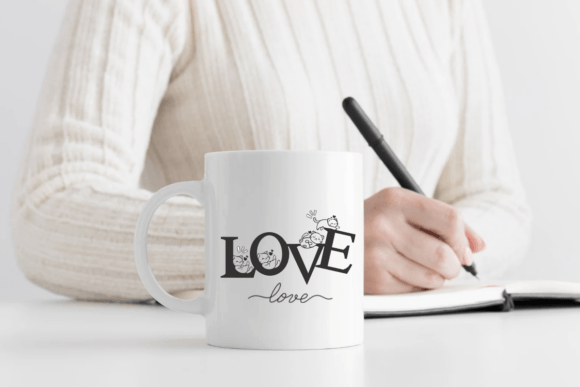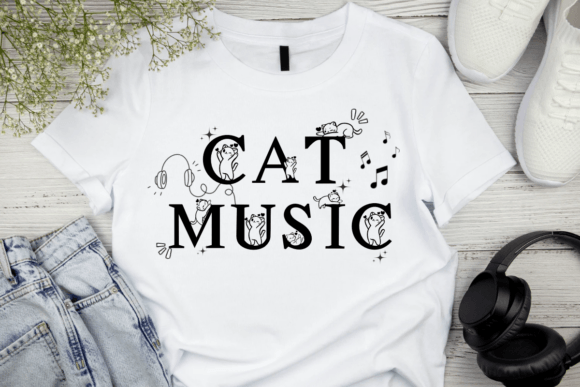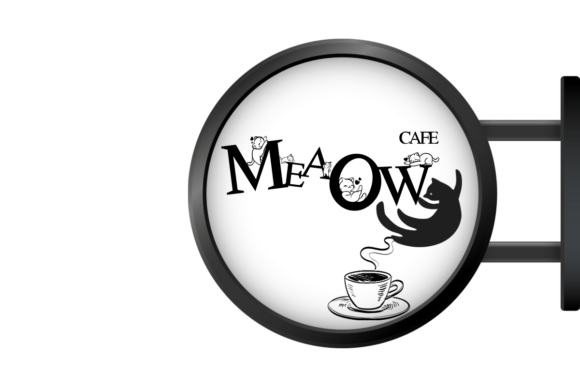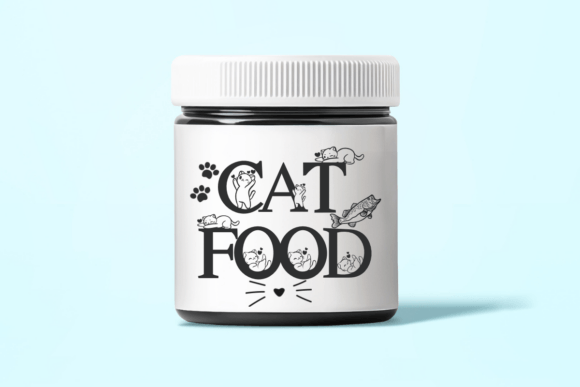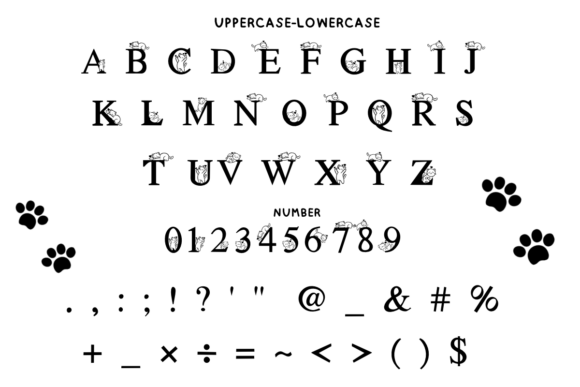
The Purrfect Font: A Deep Dive into Cat Lover Font
I’ll never forget the time I was working on a cat-themed project for a client, and I just couldn’t find the right font to match the playful, whimsical vibe of the design. The client wanted something that would make their audience go “awww,” and I was determined to deliver. That’s when I stumbled upon the Cat Lover font, and it was love at first sight! 💕
Cat Lover is a decorative font that’s perfect for cat enthusiasts and designers alike. With its cute and quirky style, it’s ideal for a wide range of creative projects, from notes and diaries to greeting cards, banners, and social media posts.
- Unique and playful design that’s sure to stand out
- Perfect for cat-themed projects or adding a touch of whimsy to any design
- Works well for both digital and print projects
- Easy to read and understand, even at smaller font sizes
Small Quirks and Limitations 🤔
- May not be suitable for very formal or professional projects ⚠️
- Some characters may not work well at very small font sizes ⚠️
- Limited availability of special characters and glyphs ⚠️
The Story Behind Cat Lover Font
Cat Lover was designed by a team of creatives who wanted to capture the playful, affectionate spirit of cats in a font. Inspired by the joy and companionship that cats bring to our lives, the designers aimed to create a font that’s both fun and functional. Whether you’re a cat lover or just looking for a unique font to add some personality to your designs, Cat Lover is sure to delight.
Q: Does Cat Lover support OpenType features?
A: Yes, Cat Lover supports OpenType features, including glyphs and stylistic alternates.